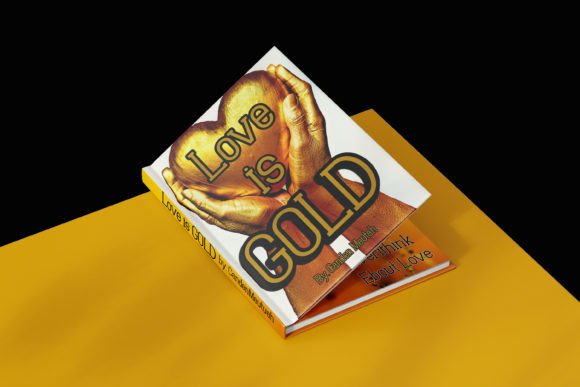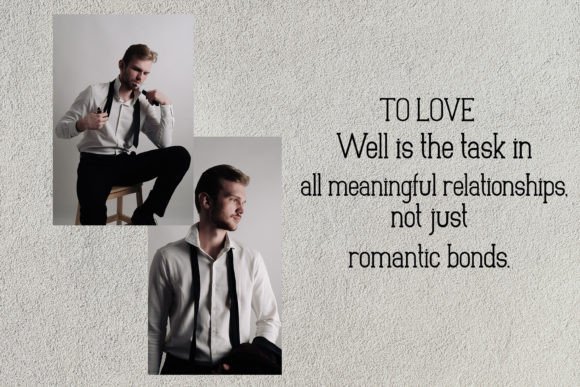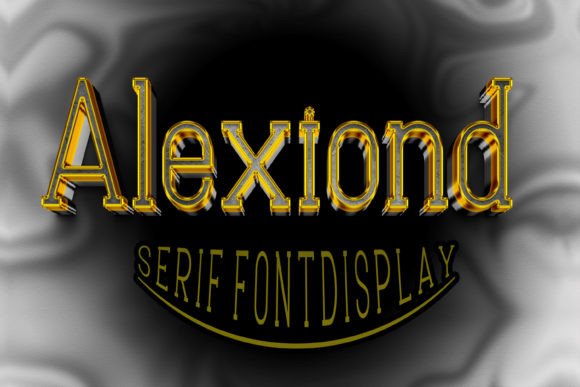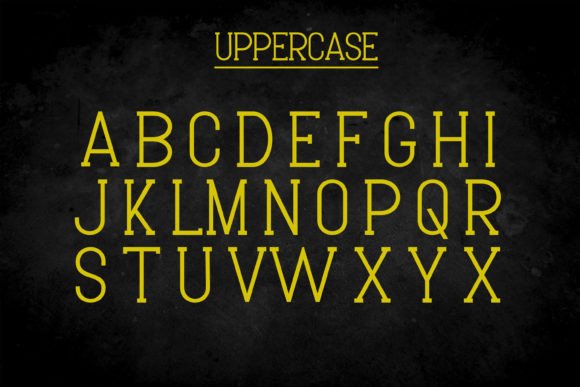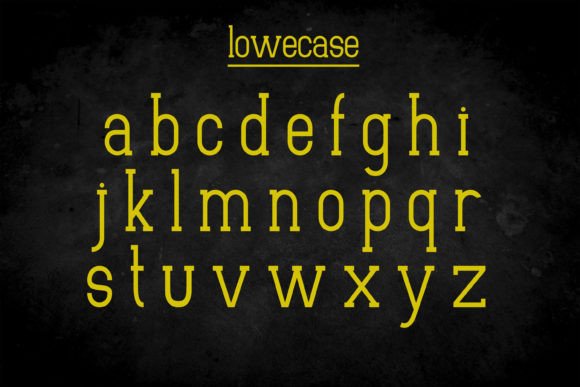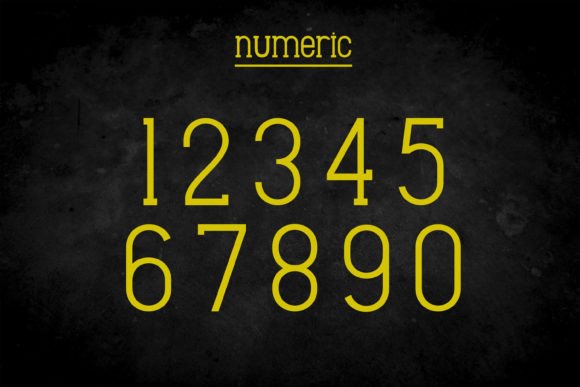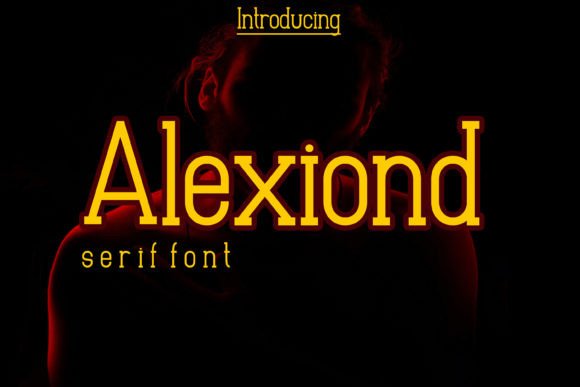
Introducing Alexiond Font: Elevate Your Designs with Elegance and Sophistication
In the world of typography, a font can make or break a design. For designers and crafters seeking to add a touch of luxury and style to their projects, Alexiond Serif font is an exceptional choice. This modern serif font is meticulously crafted in a classy style, offering a wide range of features that make it perfect for various applications. In this article, we’ll explore the features and benefits of Alexiond font and how it can elevate your designs.
Modern and Classy Design
Alexiond Serif font boasts a modern and classy design, making it an ideal choice for designers looking to create elegant and sophisticated visuals. The font’s clean lines, precise curves, and balanced proportions create a harmonious visual experience. Whether you’re working on branding projects, logo design, or packaging, Alexiond font is sure to impress.
OpenType Features for Enhanced Customization
One of the standout features of Alexiond font is its OpenType feature, which provides access to a large selection of alternative letters and ligatures. This allows designers to experiment with different letterforms, creating unique and eye-catching text styles. With a range of uppercase and lowercase letters to choose from, you can mix and match to achieve the perfect look for your project.
Alexiond font is incredibly versatile, working well in both large and small sizes. This makes it perfect for a wide range of applications, from magazine titles and advertisements to clothing branding, packaging, and product displays. Whether you’re creating a bold headline or a subtle label, Alexiond font adapts seamlessly to your design needs.
Luxurious and Elegant Appearance
The luxurious and elegant appearance of Alexiond font is sure to add a touch of sophistication to your designs. The font’s classic serif style exudes refinement and poise, making it perfect for projects that require a high-end feel. From editorials and magazine headlines to t-shirts and postcards, Alexiond font is the perfect choice for designers seeking to create a lasting impression.
Alexiond font is designed with designers and crafters in mind. Its ease of use and flexibility make it an excellent choice for creative professionals seeking to elevate their designs. Whether you’re a seasoned designer or a crafty enthusiast, Alexiond font is an excellent addition to your typographic arsenal.
Key Features of Alexiond Font
- Modern serif font with a classy style
- OpenType feature for access to alternative letters and ligatures
- Large selection of uppercase and lowercase letters
- Versatile and adaptable for various design applications
- Luxurious and elegant appearance
- Perfect for branding projects, logo design, packaging, and more
In conclusion, Alexiond font is an exceptional choice for designers and crafters seeking to add a touch of luxury and style to their projects. With its modern and classy design, OpenType features, and versatility, Alexiond font is perfect for a wide range of applications. Whether you’re creating branding materials, packaging, or editorial content, Alexiond font is sure to elevate your designs and leave a lasting impression.